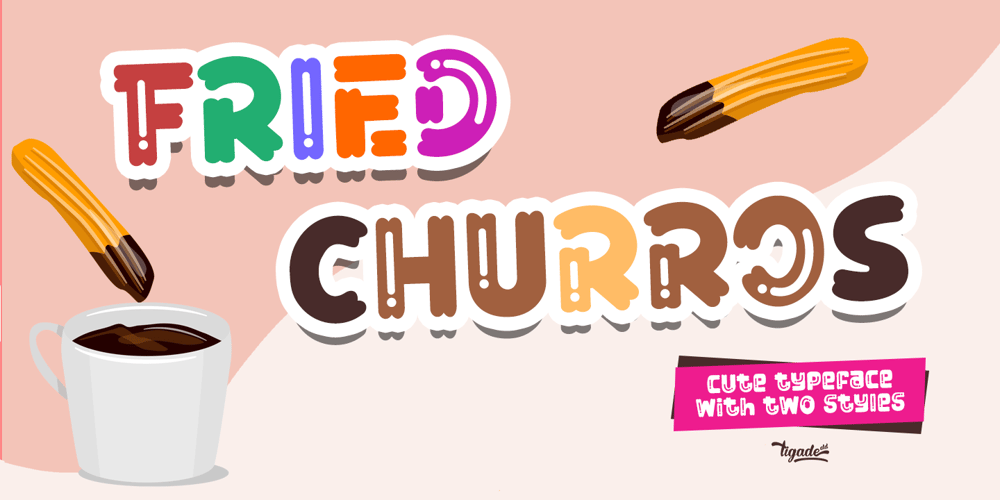
Fried Churros Font Family was designed by Doli Harahap and published by Tigade Std. Fried Churros contains 2 styles and family package options. Fried Churros is a cute, unique and fun display font. It embodies playfulness and authenticity and is the perfect choice for any children activity or school project.